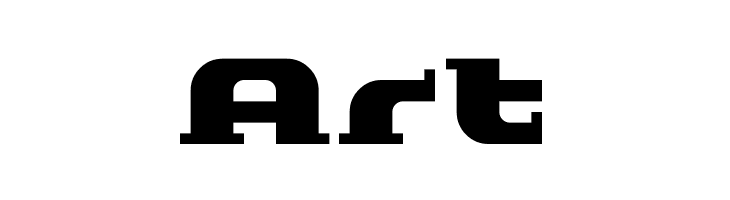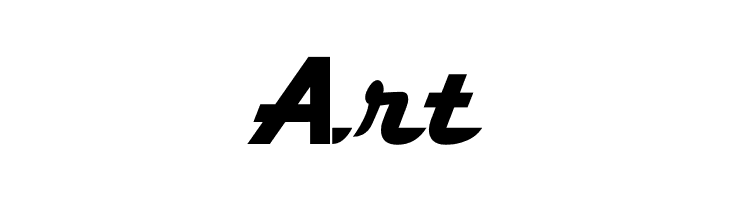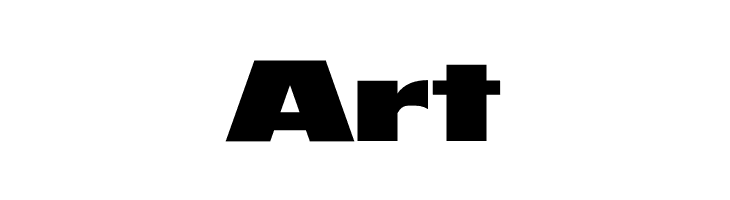
A playful, casual handwritten font with smooth, rounded strokes.
A casual, handwritten font with a friendly and approachable style.
A playful, handwritten font with a casual and friendly vibe.
A playful, casual handwritten font with smooth lines and consistent stroke width.
An elegant script font with flowing, interconnected letters and ornate details.
A bold, angular font with a modern and dynamic style.
A modern, geometric font with smooth curves and clear readability.
A bold, distressed font with a grunge, urban aesthetic.
A bold, classic serif font with strong strokes and elegant proportions.
A bold, italic serif font with a classic and elegant style.
A robust slab serif font with strong, block-like serifs and a classic yet modern style.
A bold, playful handwritten font with rounded, consistent strokes.
A bold, 3D geometric font with a retro-futuristic style.
A distressed serif font with a fragmented, aged appearance.
A bold, futuristic geometric font with angular letterforms.
A bold, geometric font with a shaded, three-dimensional effect.
A bold, geometric font with high contrast and tight spacing.
A distressed, italic serif font with a fragmented, edgy style.
A pixelated, retro-style font with a blocky, geometric design.
A jagged, eerie font ideal for horror themes.
A playful and elegant handwritten script font with smooth, flowing lines.
A bold, halftone-textured font with a playful, comic book style.
A pixelated, retro-style font with a playful, digital aesthetic.
Machine-readable barcode with vertical bars.
A playful and whimsical font with rounded, slightly irregular letterforms.
A graceful, flowing script font with elegant, handwritten characteristics.
A traditional Blackletter font with ornate, angular designs and decorative flourishes.